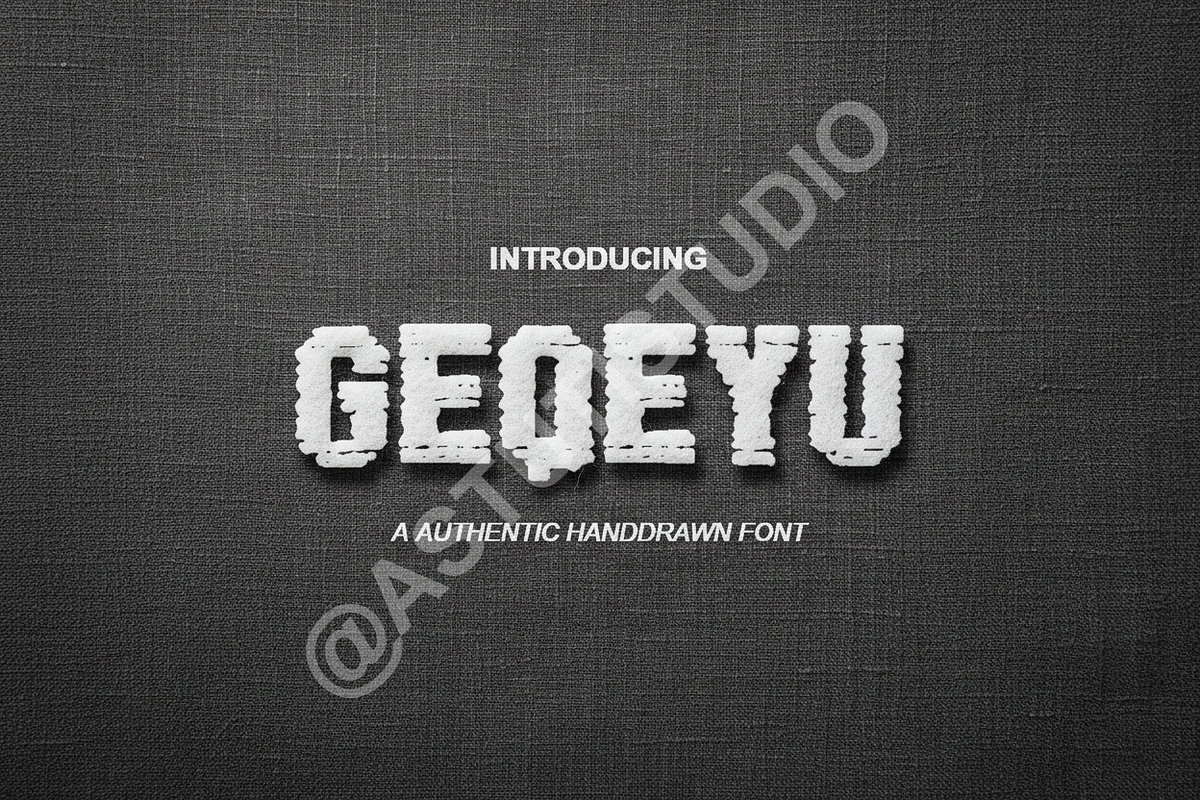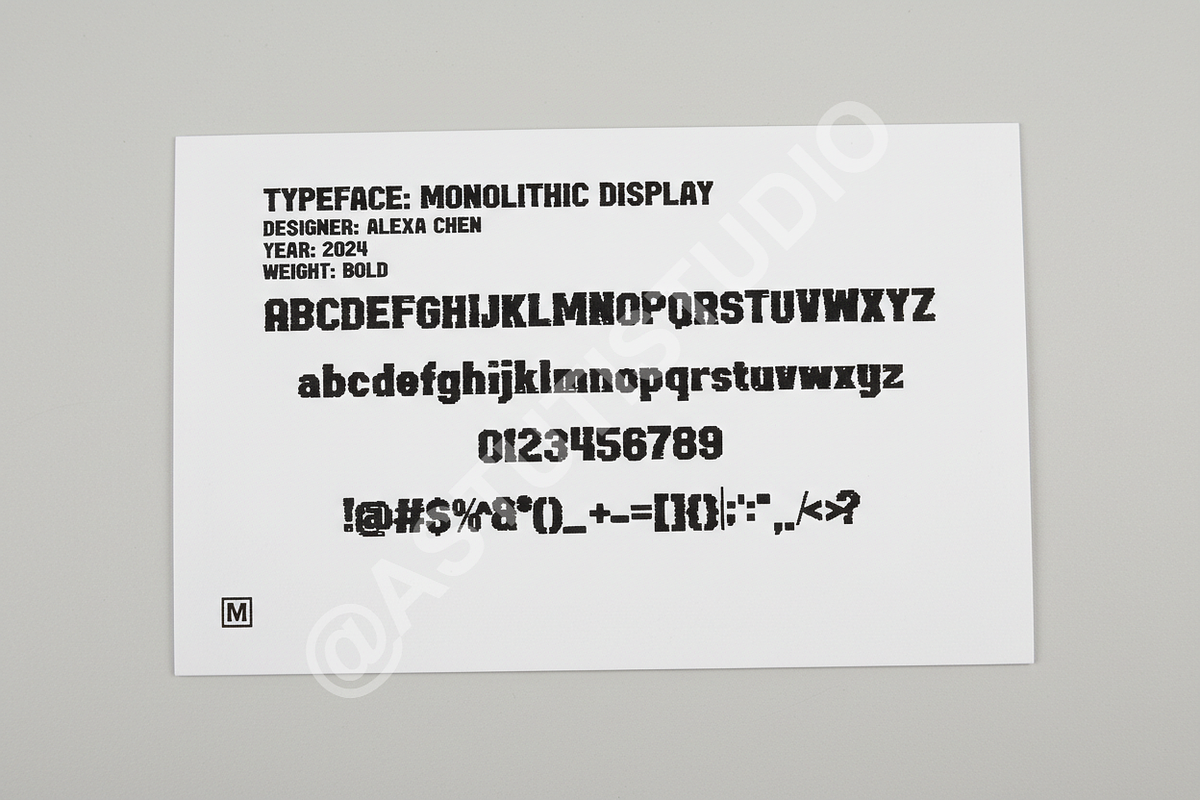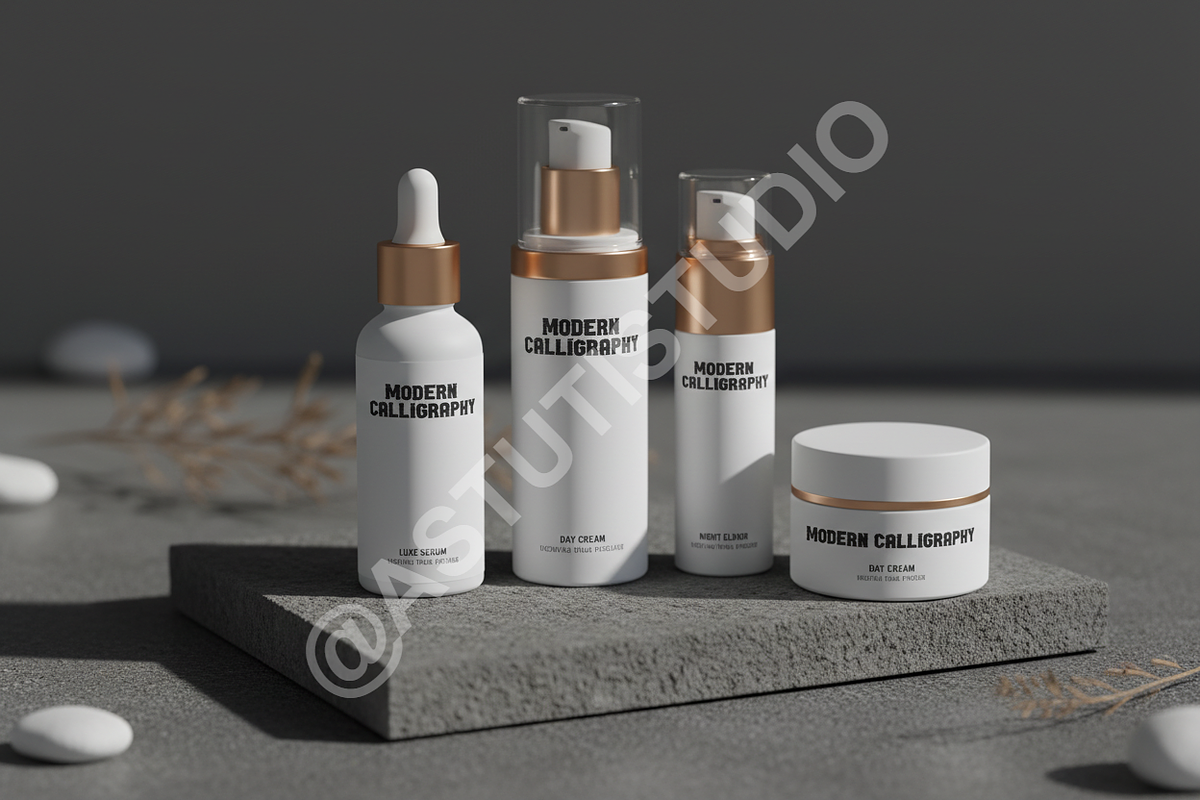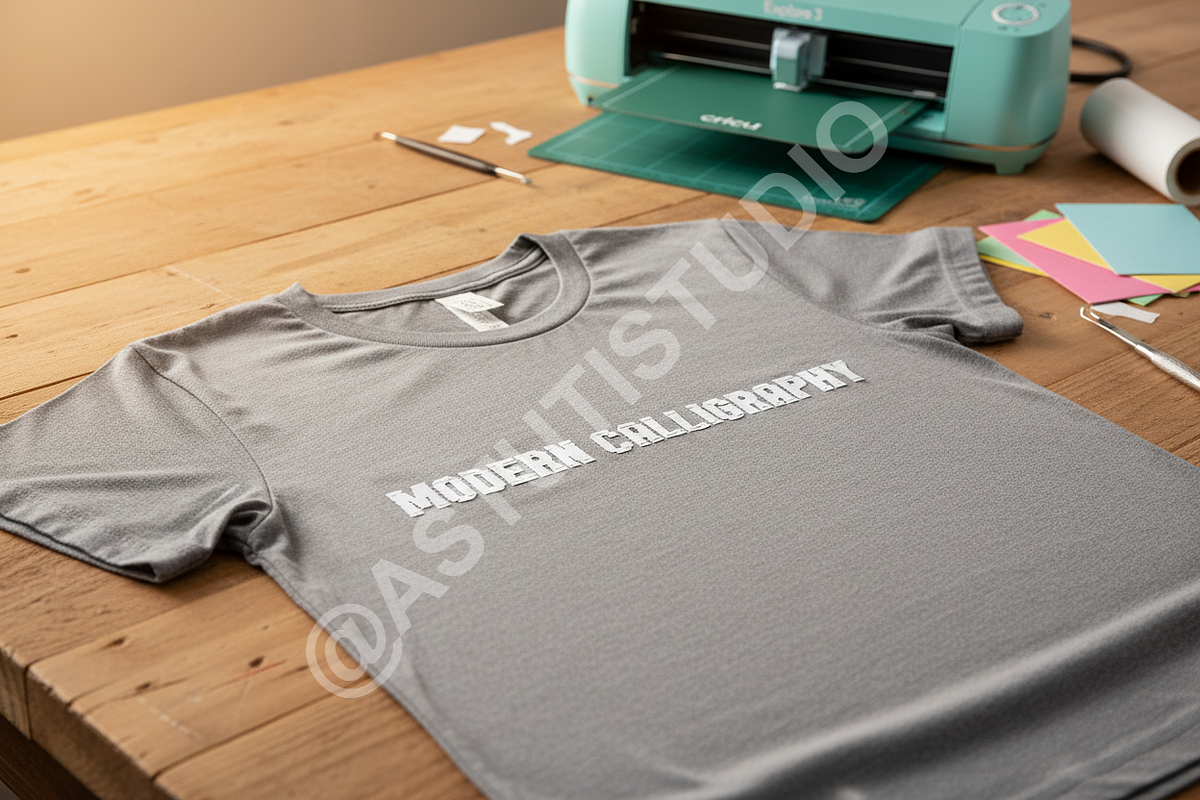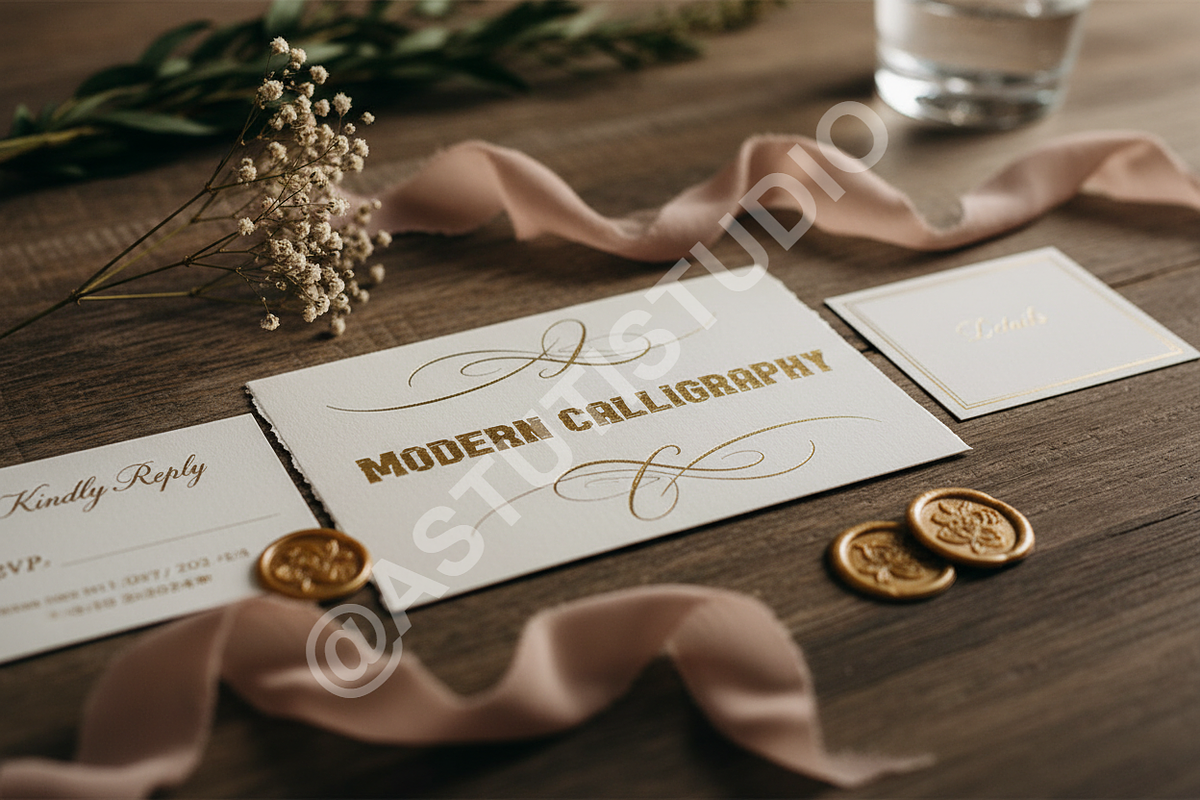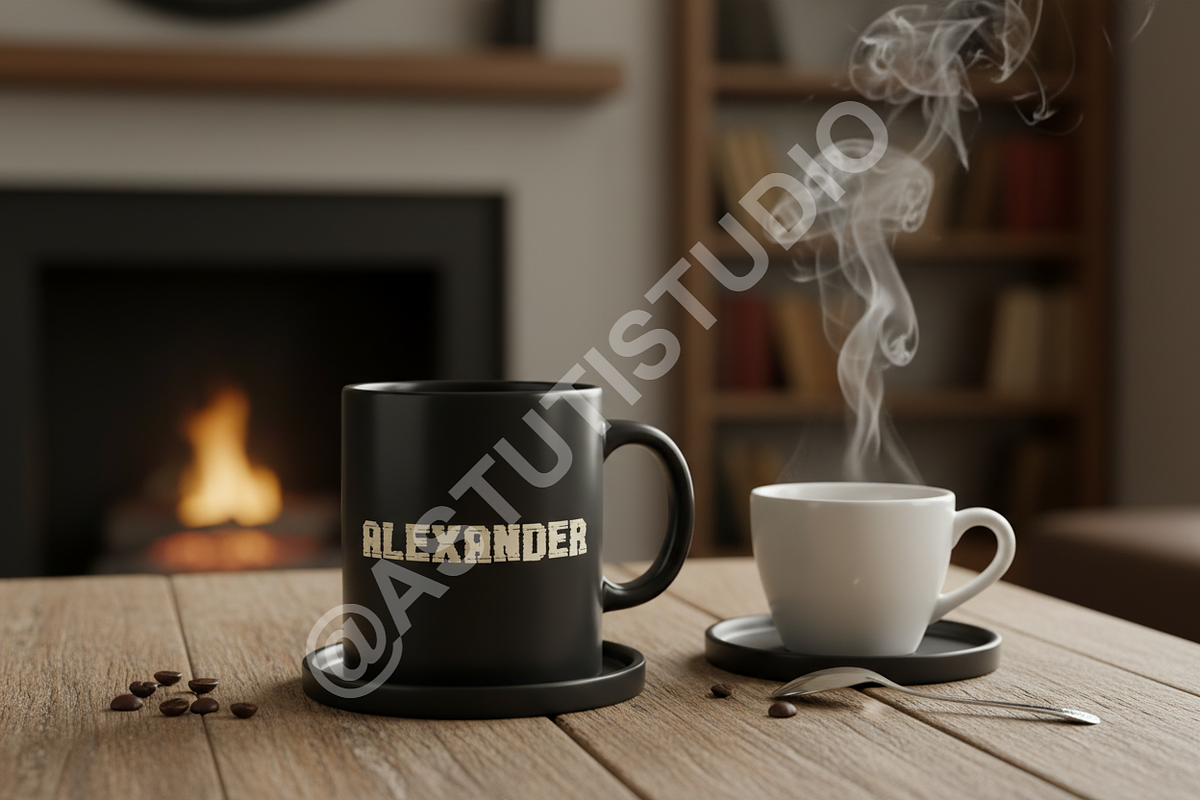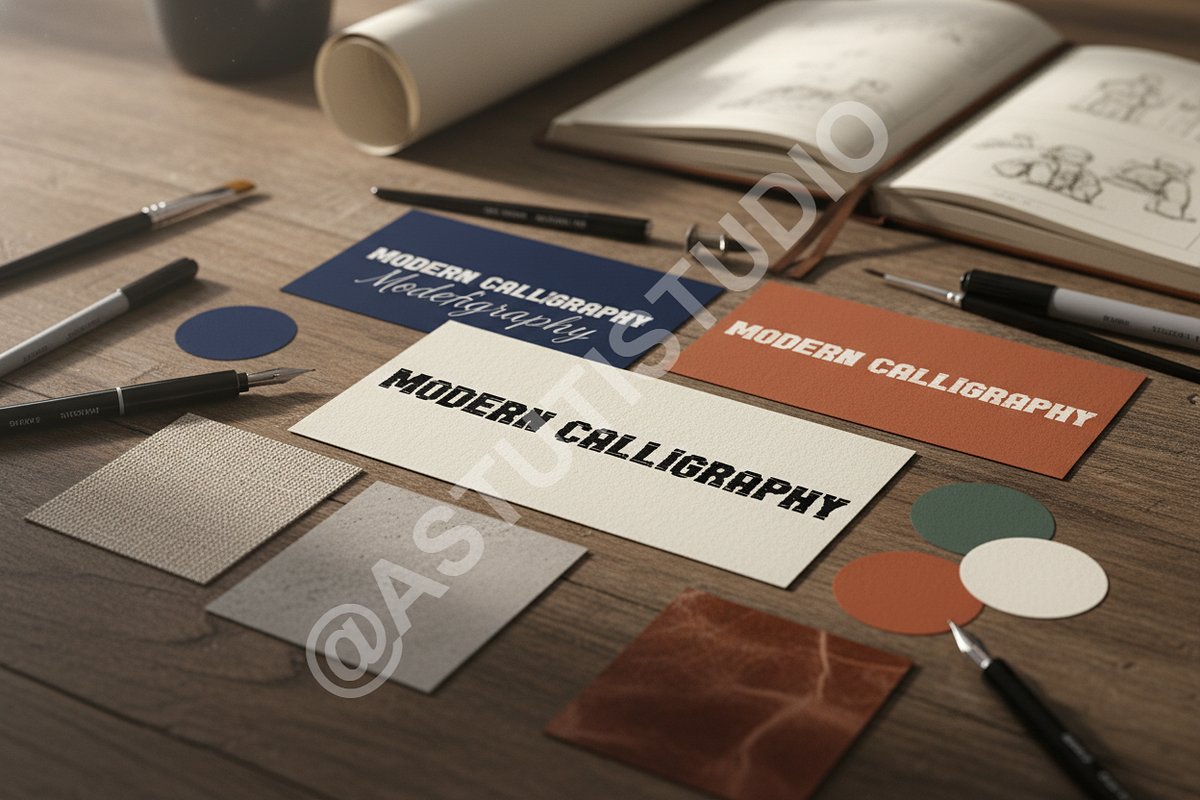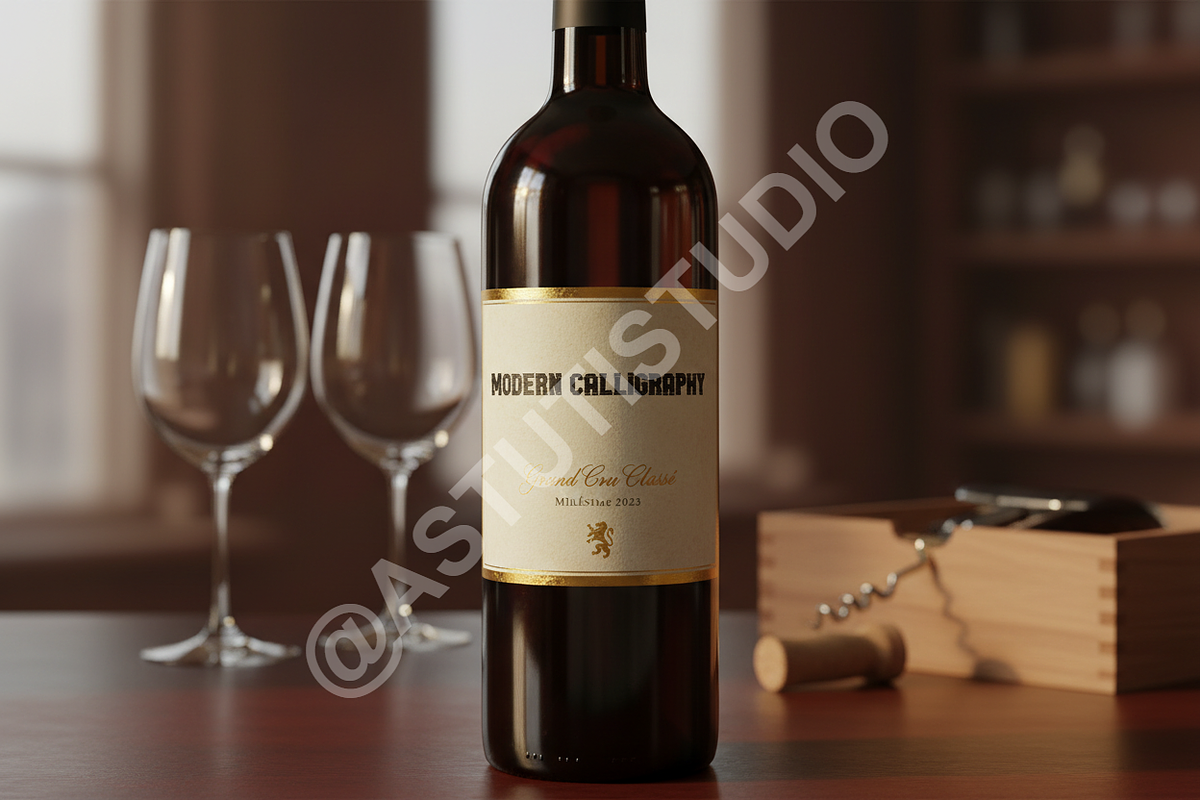
Geqeyu – Modern Luxury High-Contrast
Geqeyu is a sophisticated high-contrast serif typeface designed for the discerning professional. Drawing inspiration from high fashion editorials and timeless European aesthetics, Geqeyu blends sharp definition with elegant curves, ensuring your design projects resonate with undeniable class and authority. It is the essential typographic centerpiece for luxury branding, magazine layouts, sophisticated packaging, and high-impact social media campaigns.
- High Contrast Styling: Delivers immediate visual impact, ideal for headlines and display use.
- Extensive Ligatures: Includes a wide range of custom-designed ligatures and alternate characters for unique, seamless typographic compositions.
- Multilingual Support: Full support for Western, Central, and South Eastern European languages.
- Optimal Kerning: Professionally refined spacing for maximum readability and visual flow.
The Geqeyu family comes complete with three versatile weights to cover all your design needs: